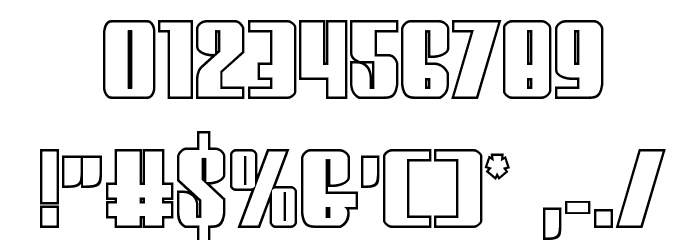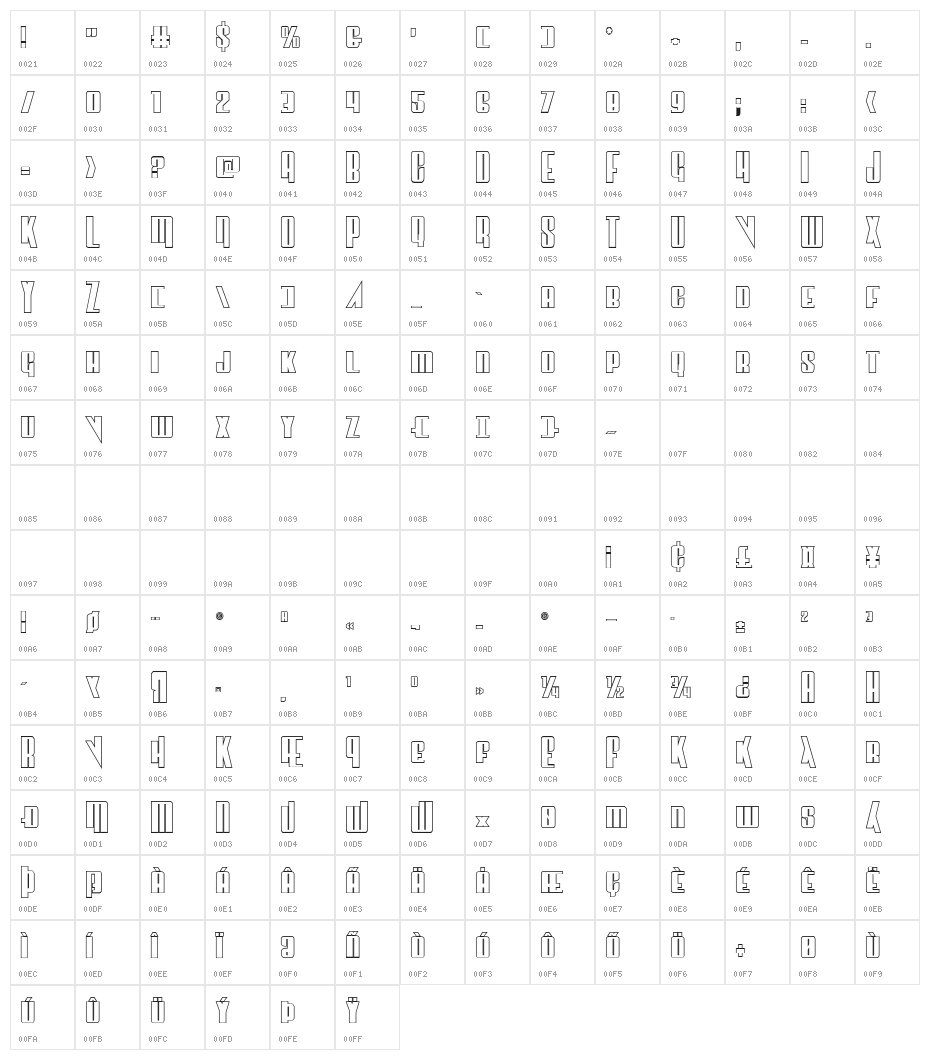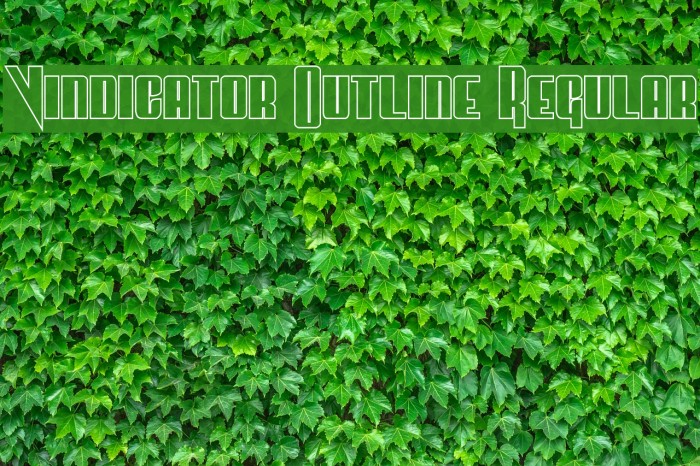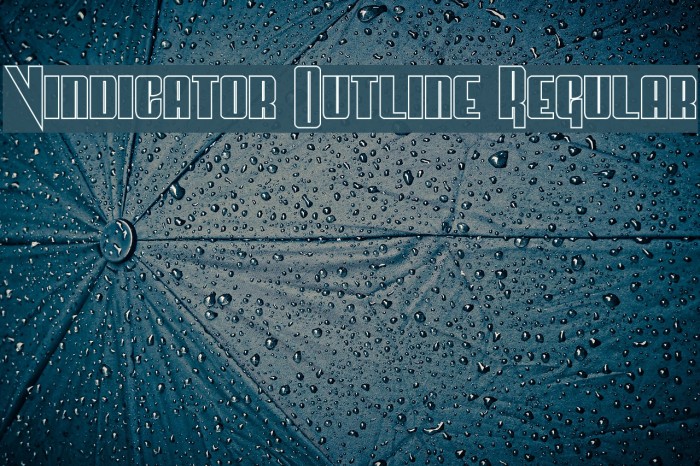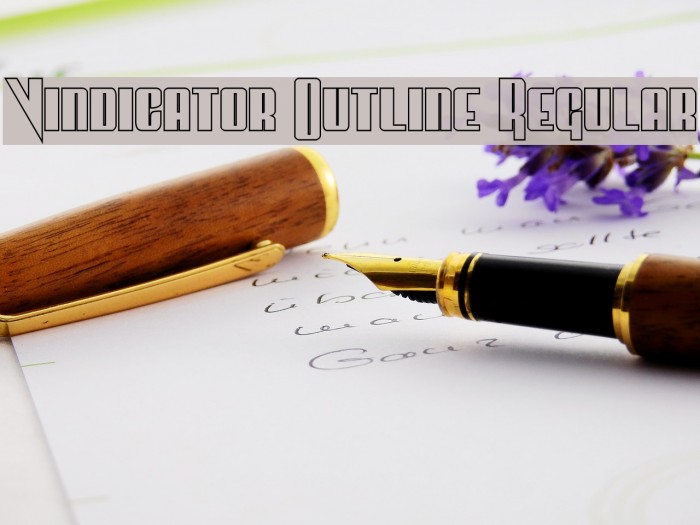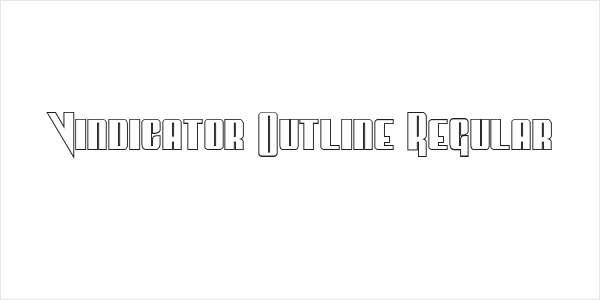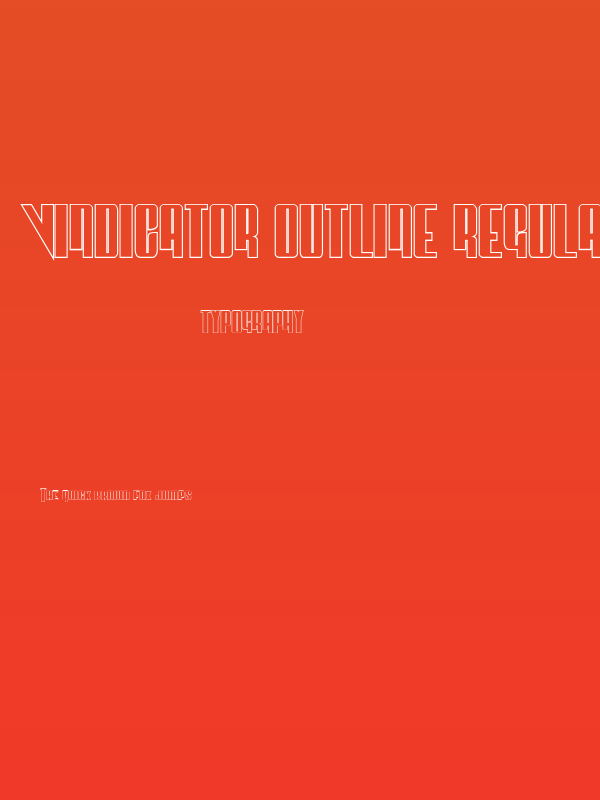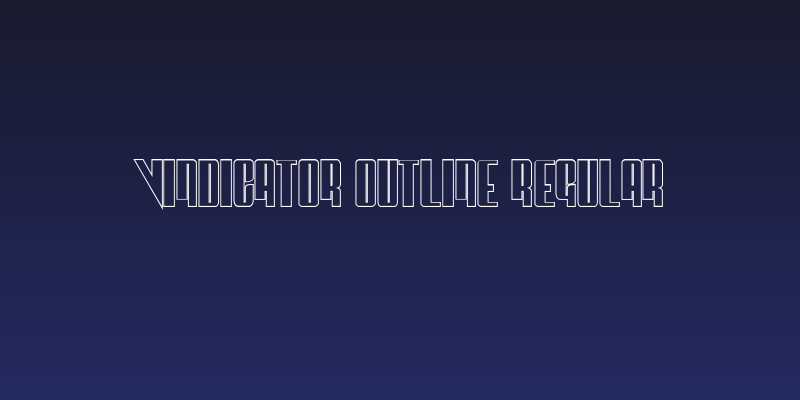
Vindicator Outline Regular Font
Vindicator Outline Regular Description
This font features a bold, geometric outline style that is both striking and modern. The uppercase and lowercase letters maintain a consistent height, creating a uniform appearance. The characters are constructed with sharp angles and straight lines, giving them a futuristic and industrial feel. The numbers and special characters follow the same design principles, ensuring a cohesive look across all glyphs. The outline nature of the font adds a unique dimension, making it stand out in various design applications.